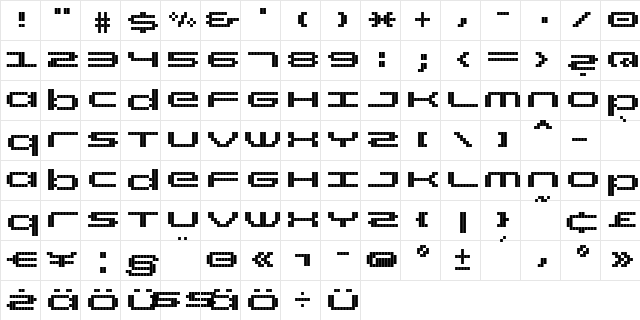
rt screenloft8 Bold
Design Context for rt screenloft8 Typeface
rt screenloft8 takes a measured approach to typography — its balanced proportions and neutral character make it a reliable workhorse for both digital and print work. Its bold stroke weight gives it real presence on the page.